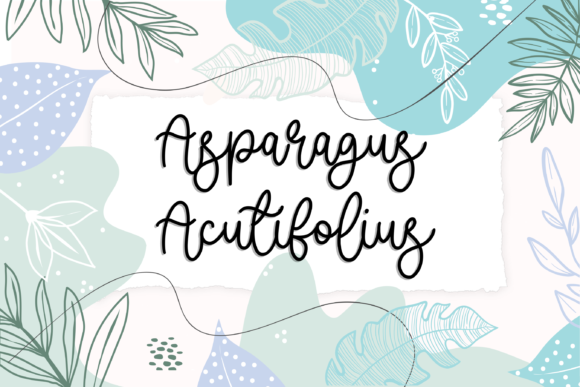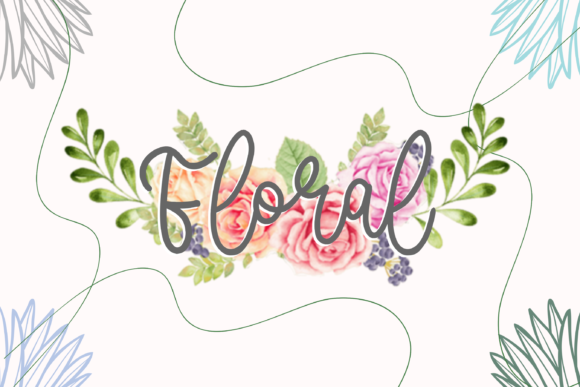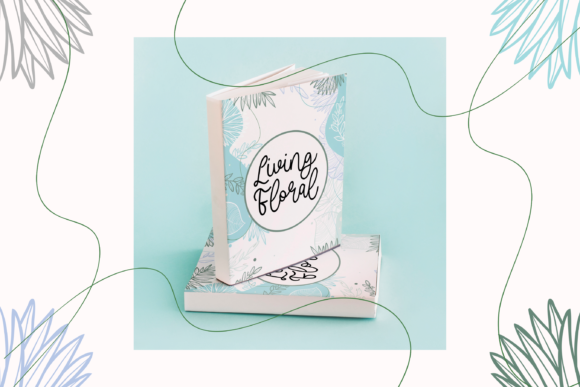
Introduction to Madelief Font
Have you ever stumbled upon a design that makes your heart skip a beat? For me, that moment came when I discovered the Madelief Font. Its soft, handwritten script is the perfect combination of elegance and playfulness, making it a must-have resource for any creative project.
As a designer, I know how valuable it is to have access to high-quality design resources that can elevate our work to the next level. The Madelief Font is one such treasure, offering a unique and authentic feel that’s perfect for wedding invitations, social media posts, and greeting cards. With its transparent background and beautiful texture, this font is a game-changer for any designer looking to add a personal touch to their designs.
Key Features of Madelief Font
- High-quality design resource ideal for creative projects requiring a unique touch.
- Features a unique, elegant design that sets it apart from other fonts.
- Suitable for a wide range of creative projects, from logos and branding to digital art and publications.
Honest Review: Madelief Font
I recently stumbled upon the Madelief Font, and I must say, it’s a wonderful addition to any design resource collection. This beautiful script font is perfect for adding a touch of elegance to your creative project.
- ✨ High quality design that looks stunning in print and digital formats.
- ⚠️ Limited font variations, which might not be ideal for designers looking for a range of options.
- ⚠️ Some users may find the font size a bit too large for certain designs.
Overall, I’m impressed with the Madelief Font. It’s a high-quality design resource that can elevate your creative project. While it has its limitations, the free download option and transparent background make it a worthwhile addition to any design collection.
Common Use Cases for Madelief Font
The Madelief Font is ideal for various creative projects, including:
- Wedding invitations and stationery.
- Branding and logo design.
- Event promotion and advertising.
- Personalized gifts and cards.